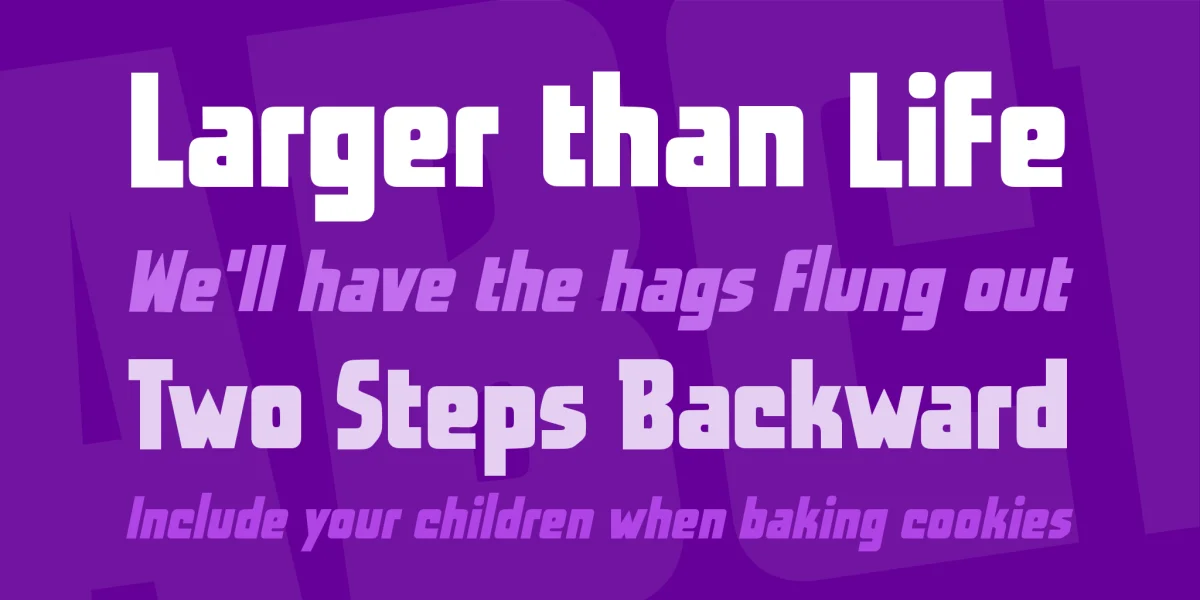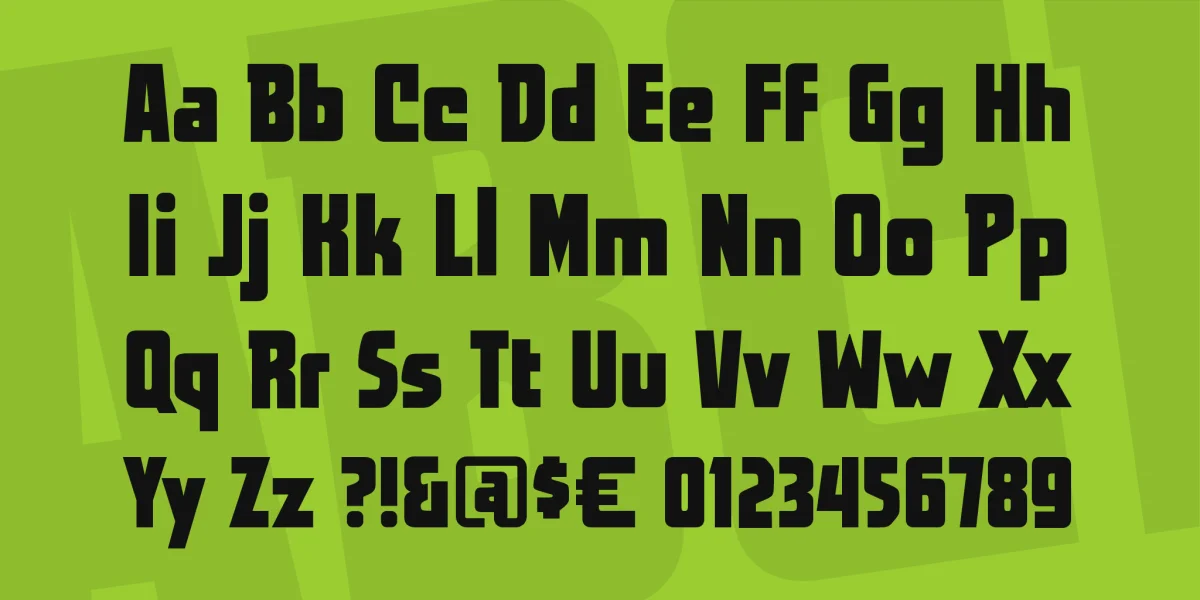
Inspired by cover lettering on classic hero books from the "big two", WORLDS AT WAR is an upper/lower title font with clean, dynamic lines meant to exclaim things like, "WILL OUR HEROES SURVIVE?" and "DON'T MISS THIS BONE-CHILLING FINALE!" Comes with regular and italic.